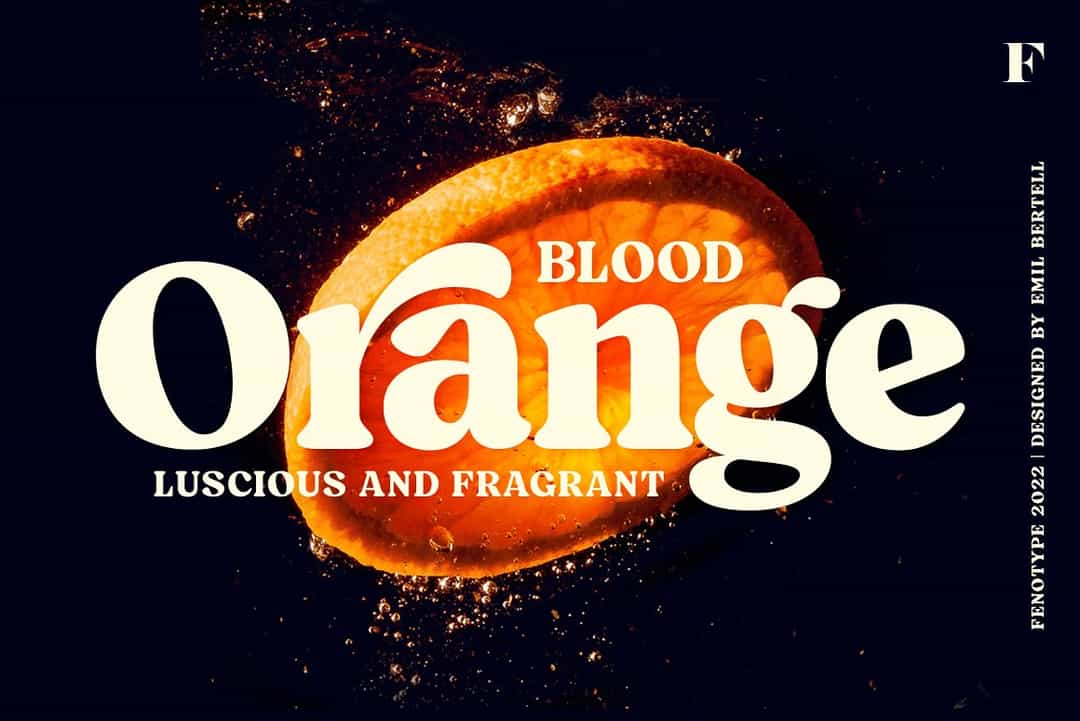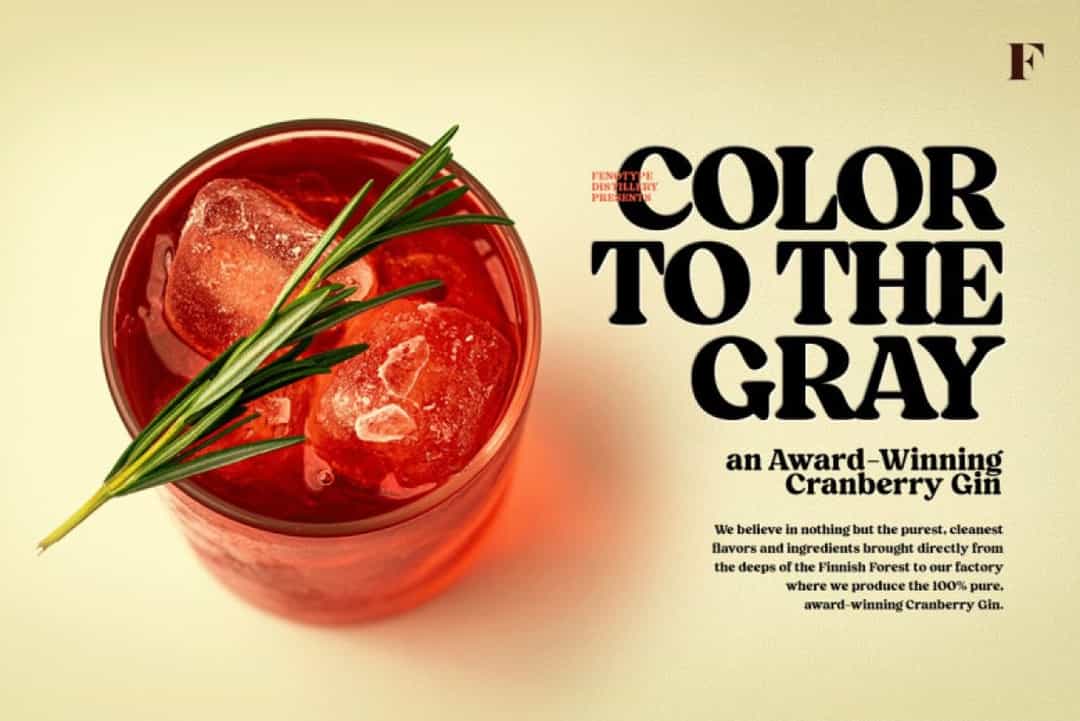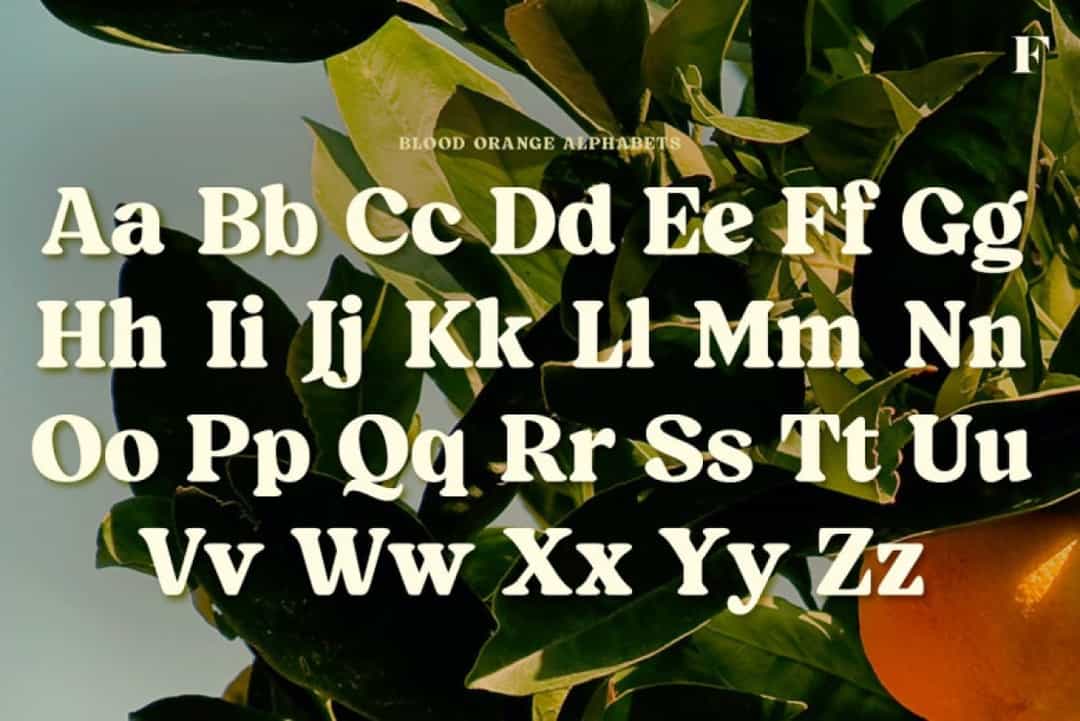
Blood Orange Font is a bold elegant serif typeface. Is inspired by 70s style. Blood Orange works great as a logotype, in magazines, headlines, posters, advertising and packaging. It’s at its best in short sentences since it’s so bold, but can be used for a bit longer text passages too, with some spacing added.